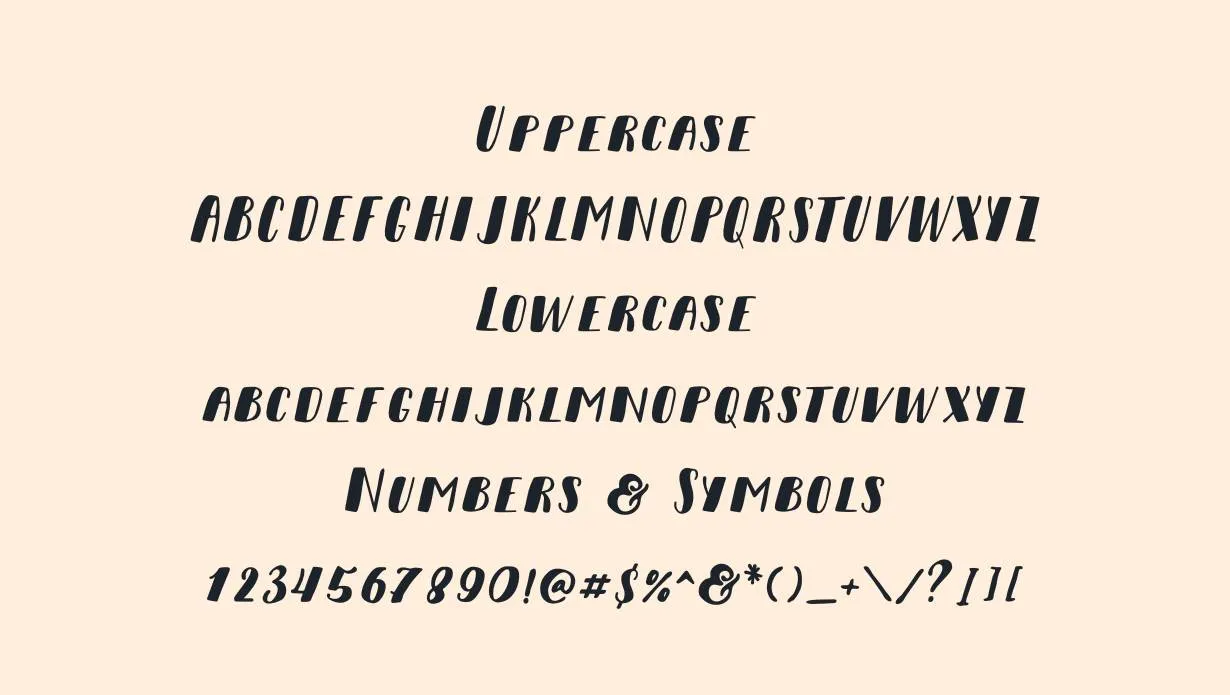
Sitka Brush Font is a decorative and expressive typeface known for its hand-painted and artistic design. It’s often used in creative projects, invitations, and branding where a unique and artisanal appearance is desired.
The font’s brush-like strokes and organic feel add an element of creativity to your design work.
Sitka Brush Font Family
| Name | Sitka Brush Font |
| Designer | Ross Mills |